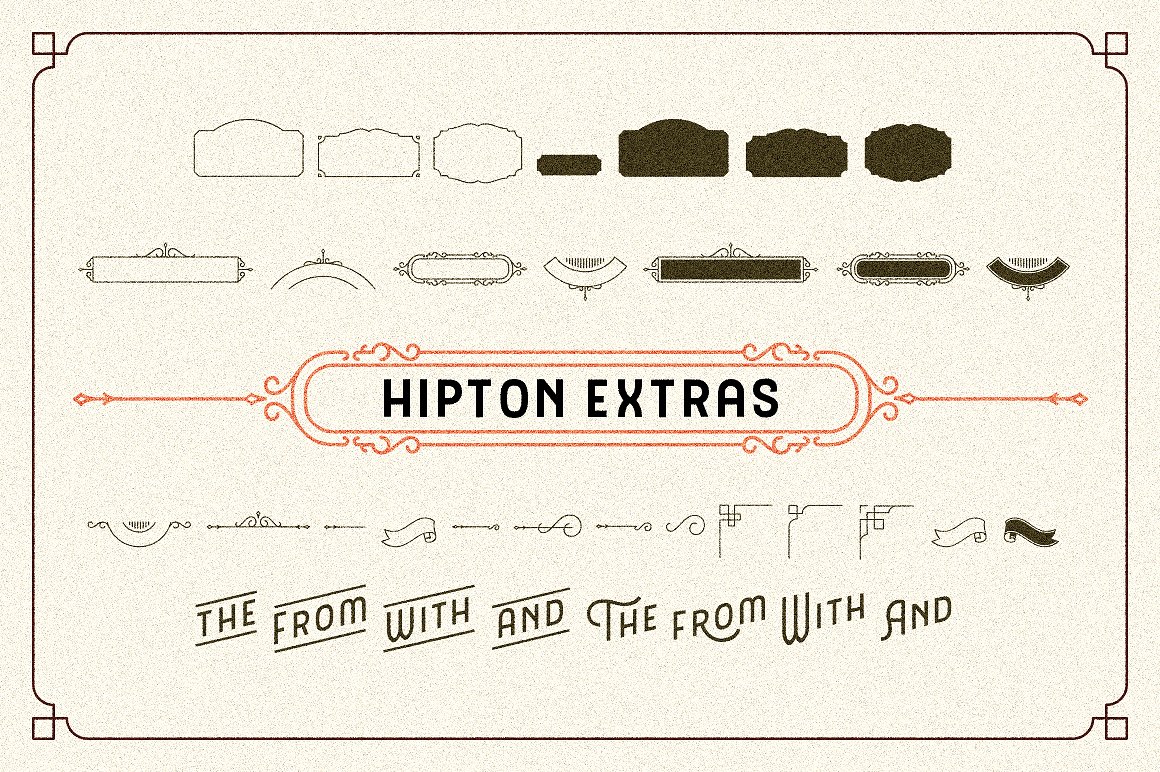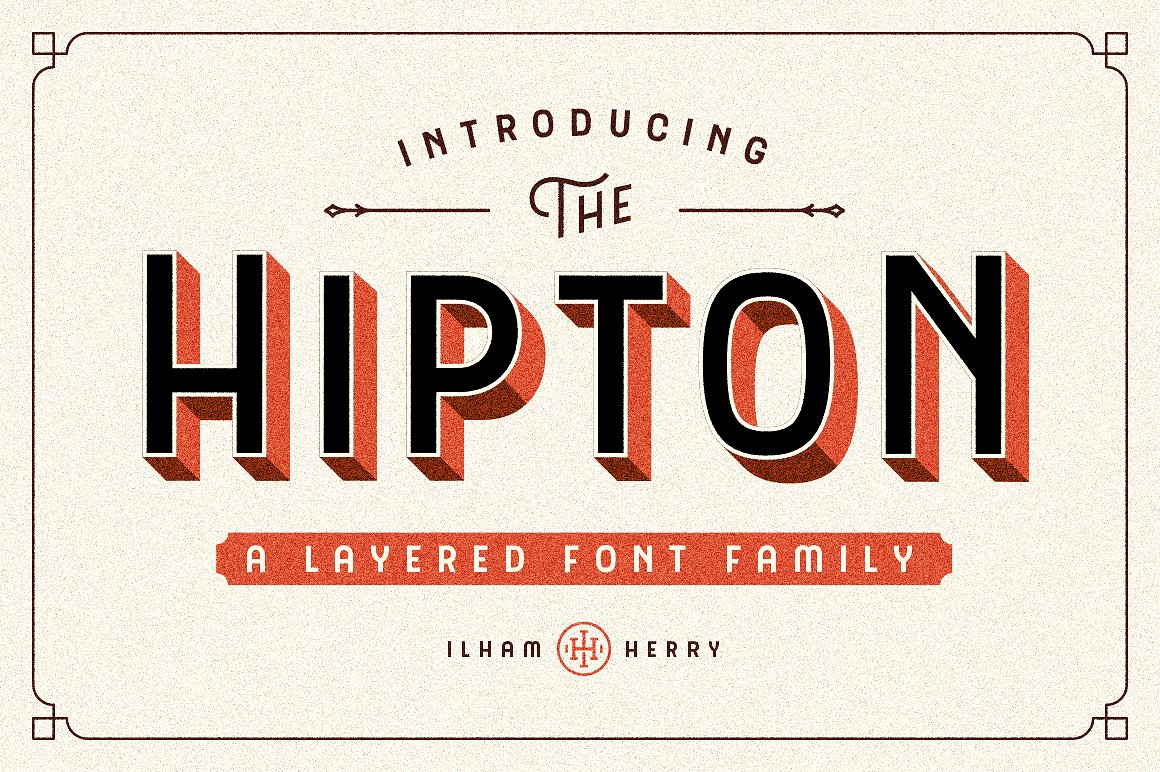
The HIPTON
The HIPTON Font Family
Introducing new layered font family it’s call the Hipton. Inspired from single stroke gothic letter of sign painting and make it layered. This is collection of type with a layered type system, many possibilities combination and options. As a display typeface Hipton is suitable for headlines, logotypes, signs, posters, greeting card, letterhead, t-shirt, and many more.